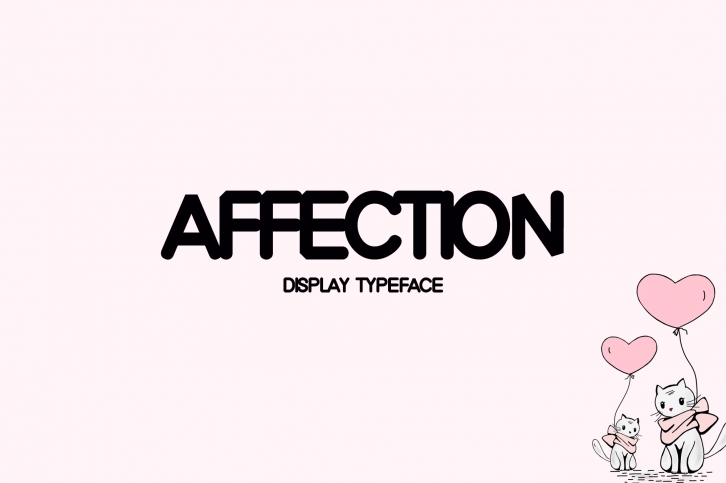
Affection is a beautiful font that was designed by Seemly Fonts. It's a great choice for designers and creatives who need such a font. It was released on January 31, 2020 and the file size is 17.65 MB. Affection may give a more youthful, expressive and casual look to your project. It is a very beautiful, refined, elegant, and high-quality font.